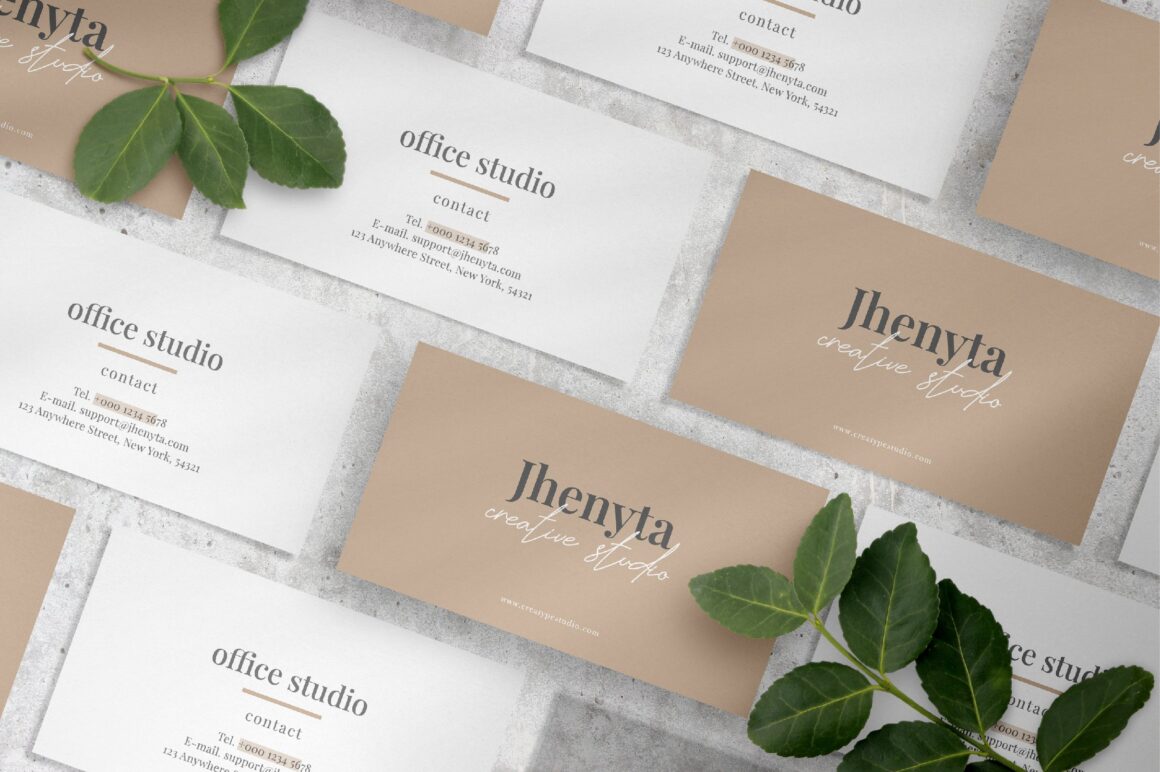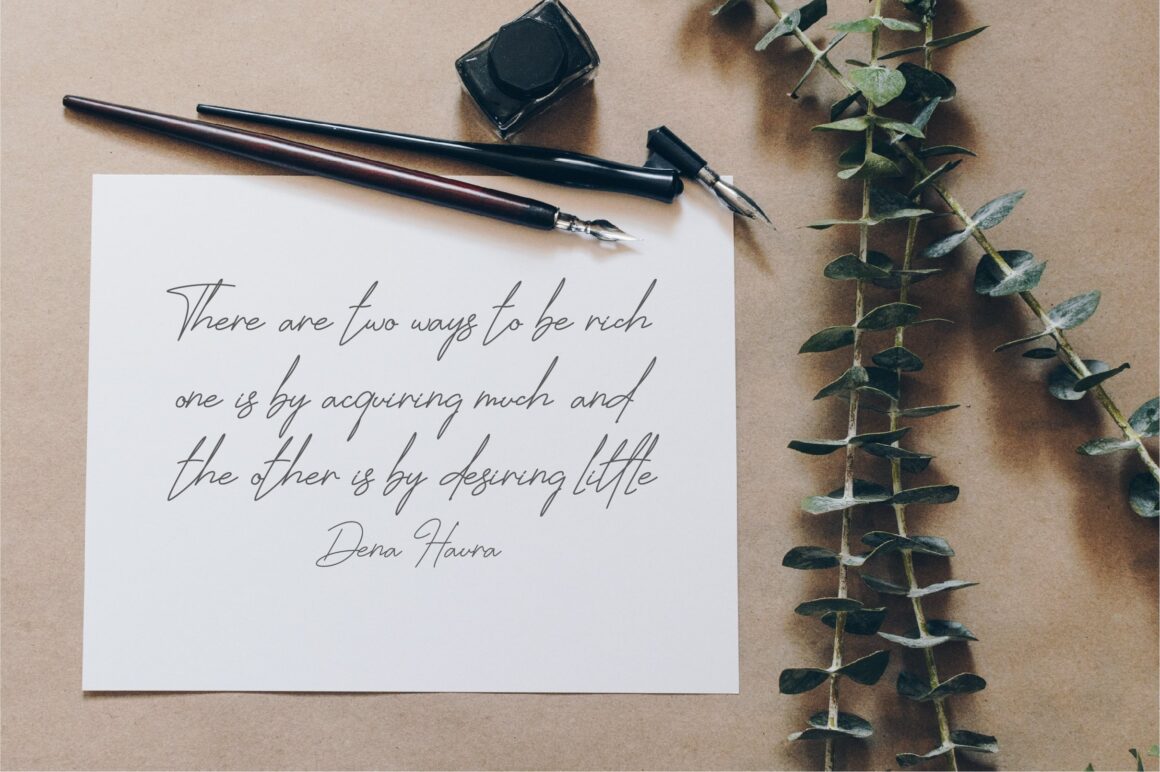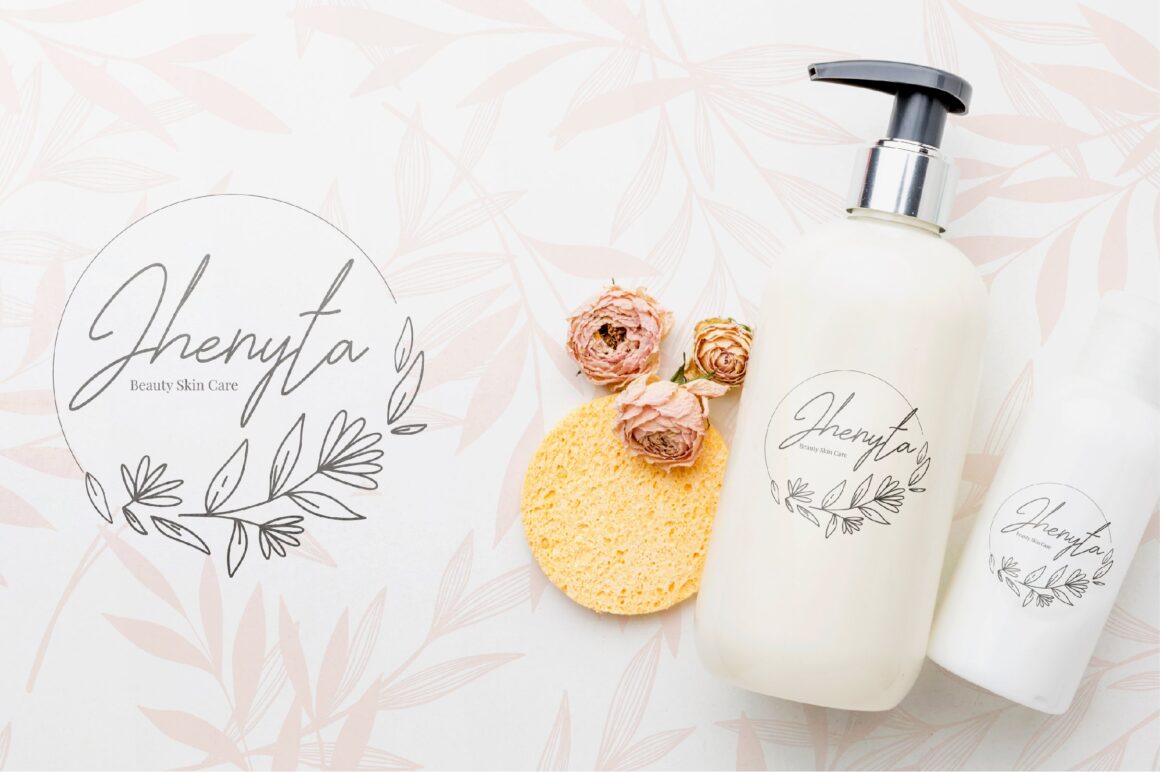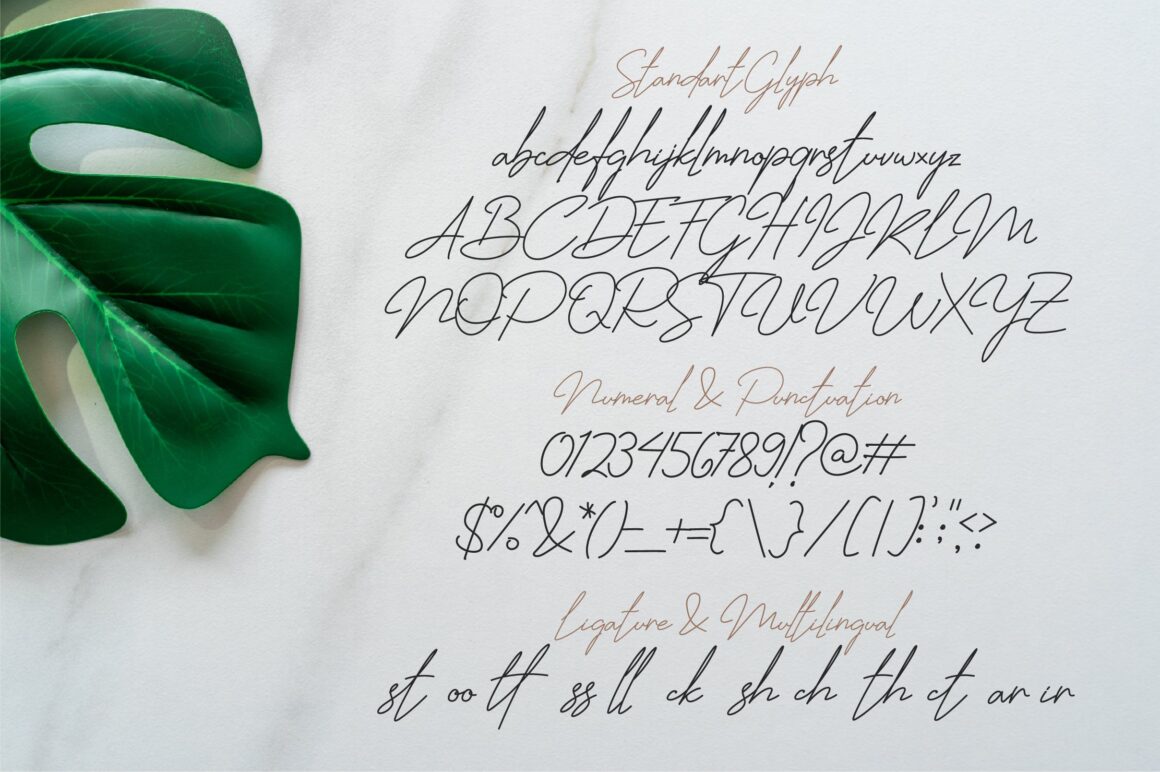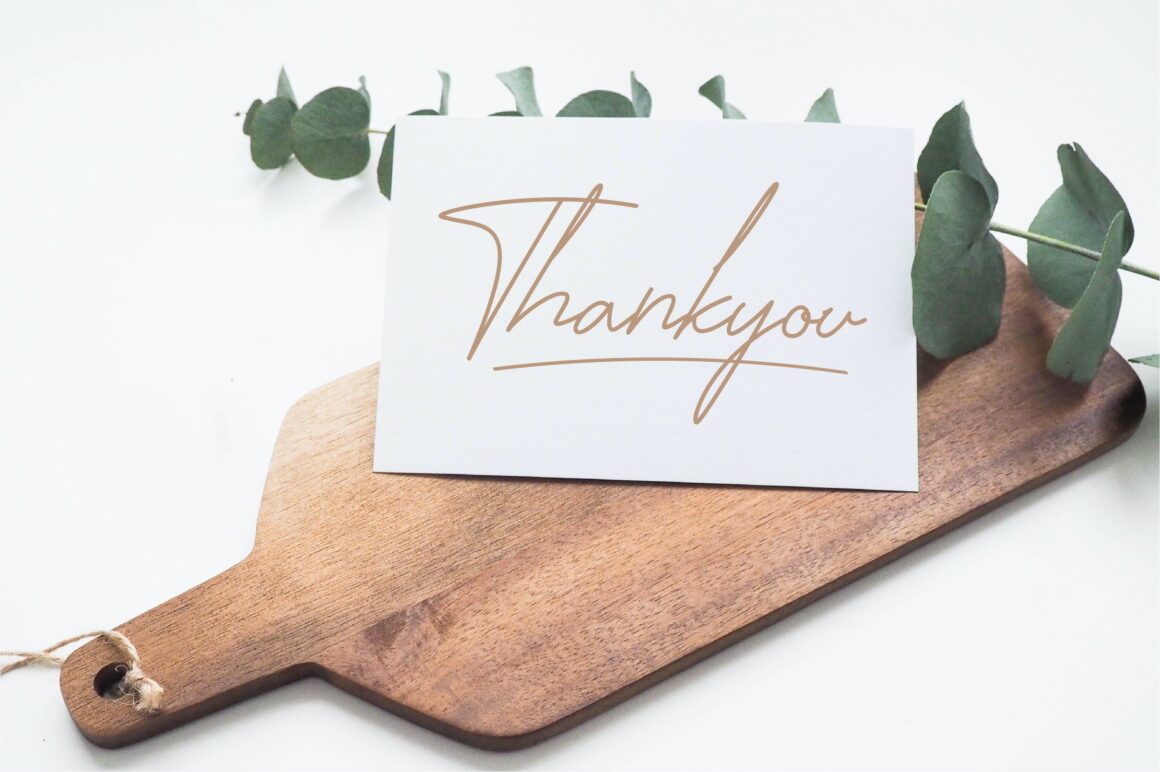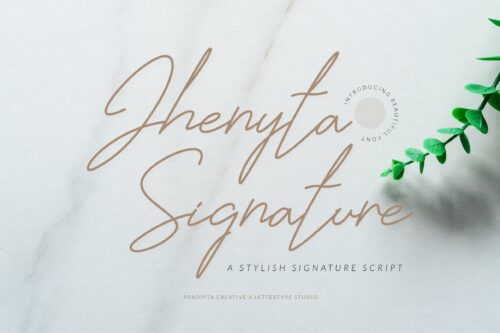
Jhenyta Signature is a fashionable and sophisticated signature-style typeface, designed with unique curves and an elegant inky flow. Its modern yet timeless look makes it perfect for adding a personal and stylish touch to your projects, whether you’re working on branding or creative design.
Ideal for photography watermarks, social media posts, advertisements, invitations, logos, labels, and wedding stationery, Jhenyta Signature adapts beautifully to both digital and print use. With its refined handwritten charm, this script font is the perfect choice for designers who want to convey elegance, authenticity, and creativity in their work.